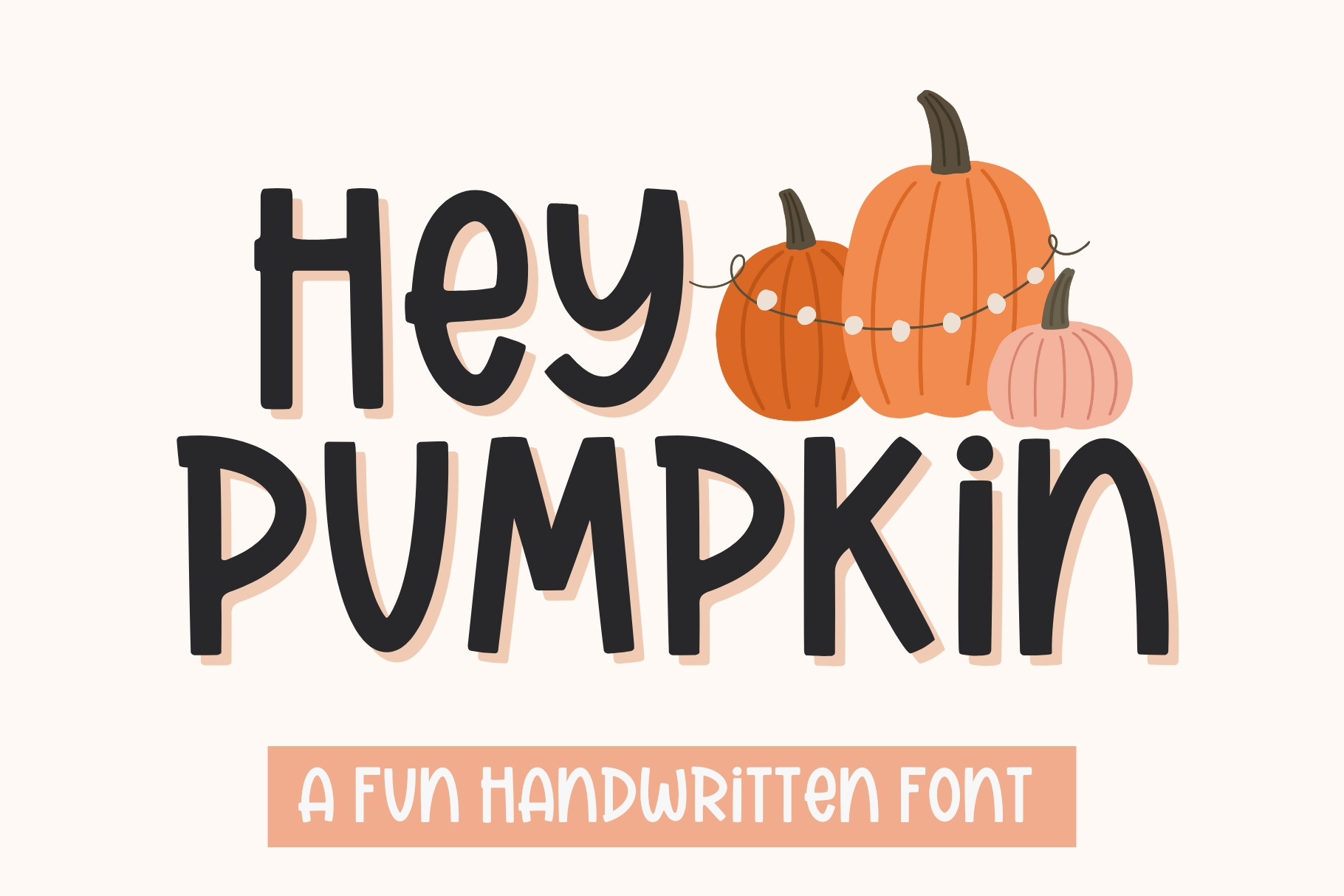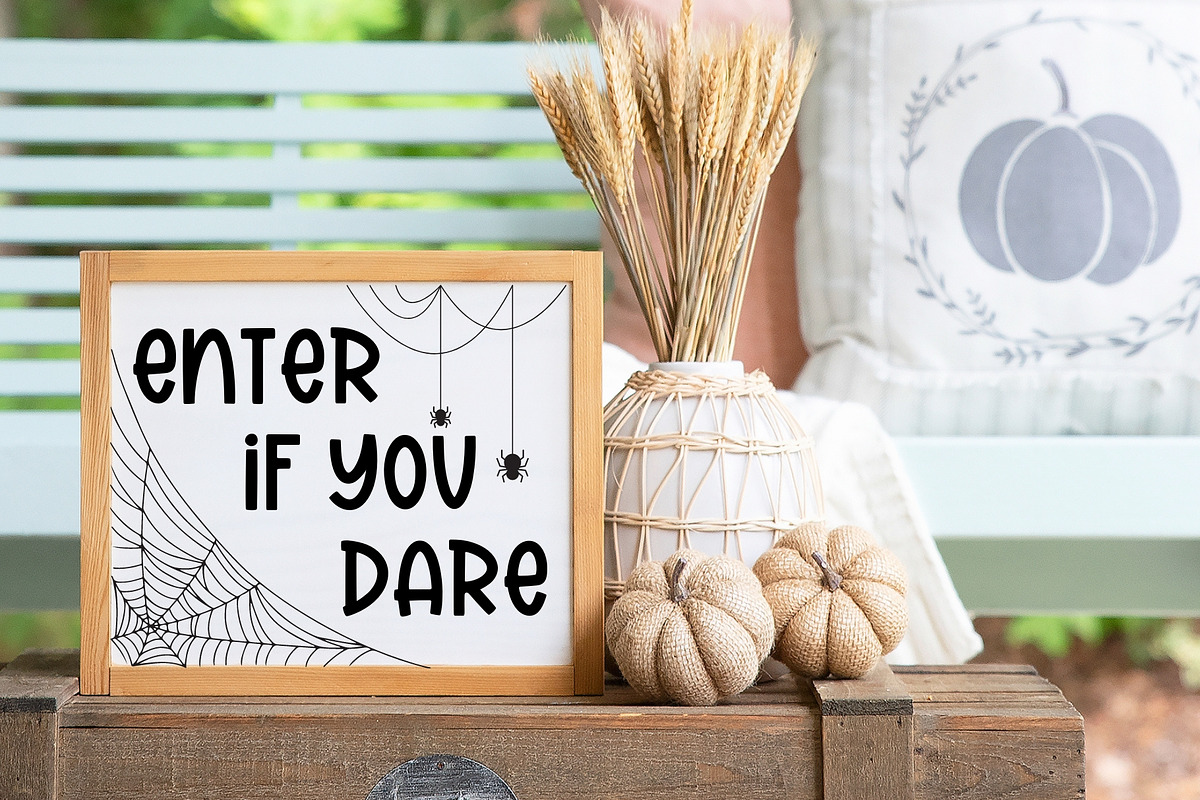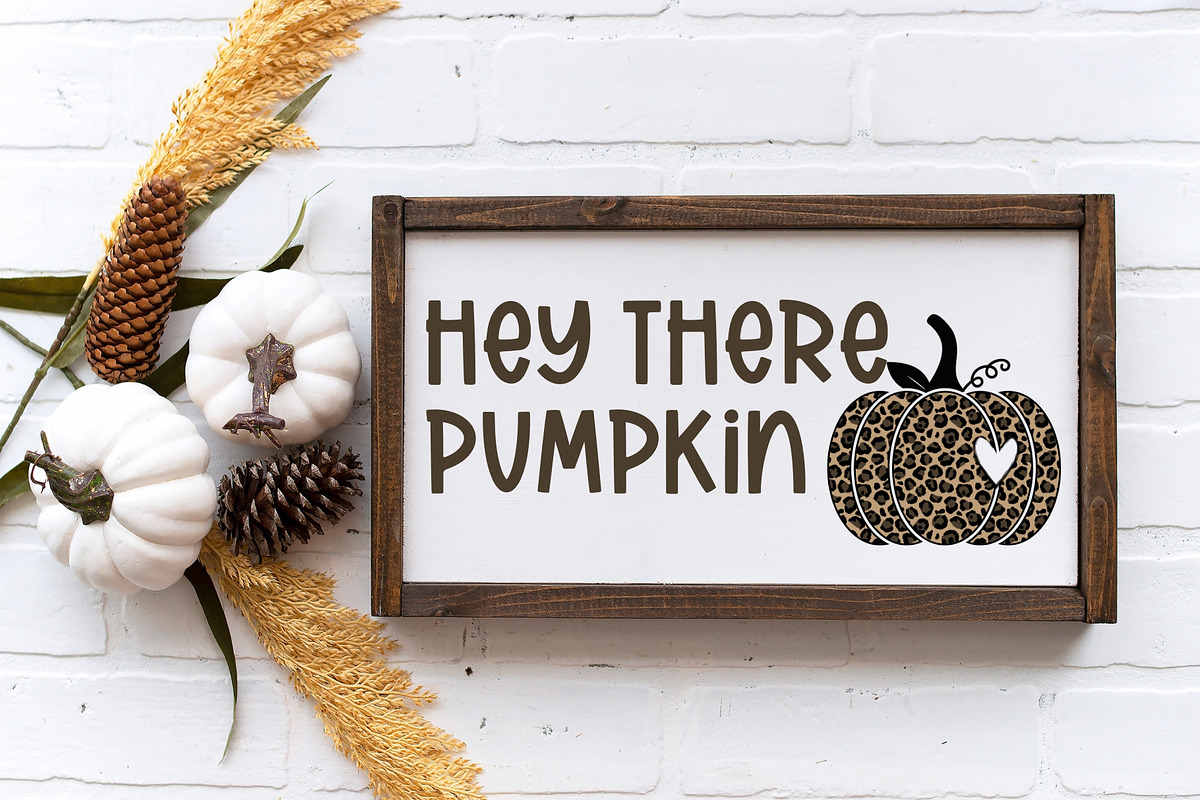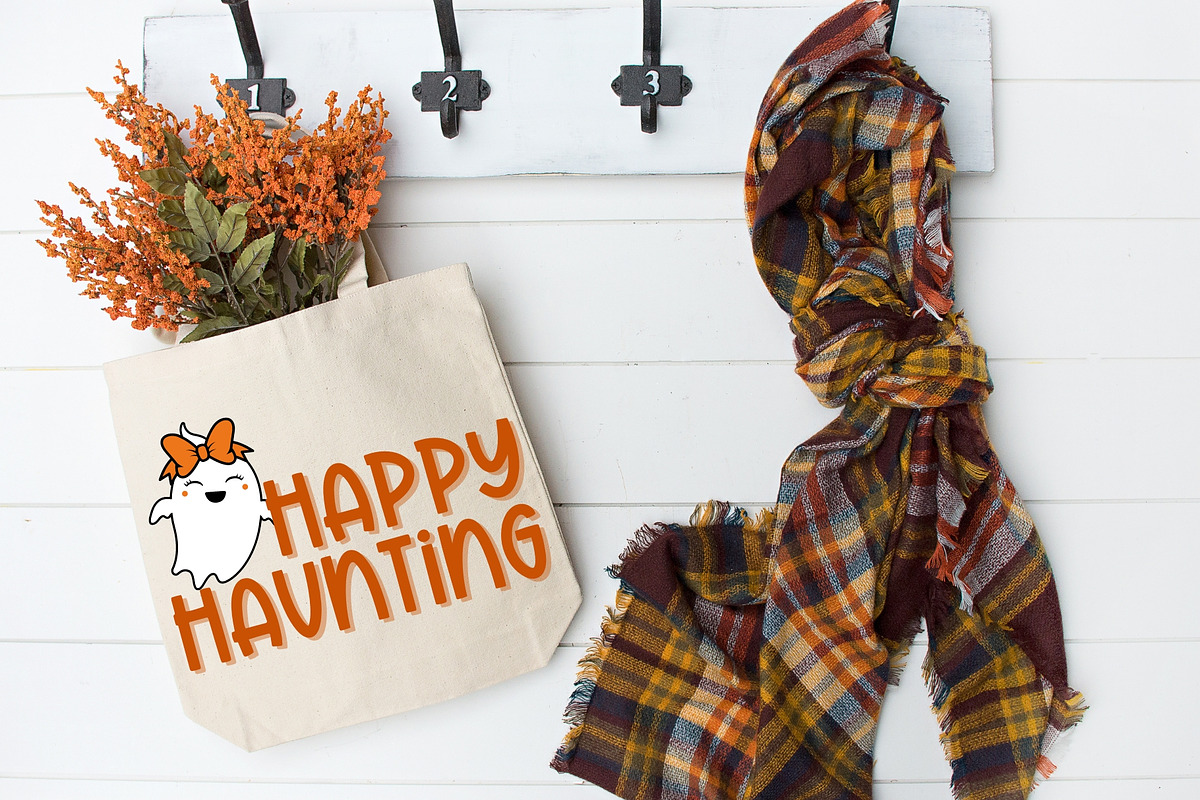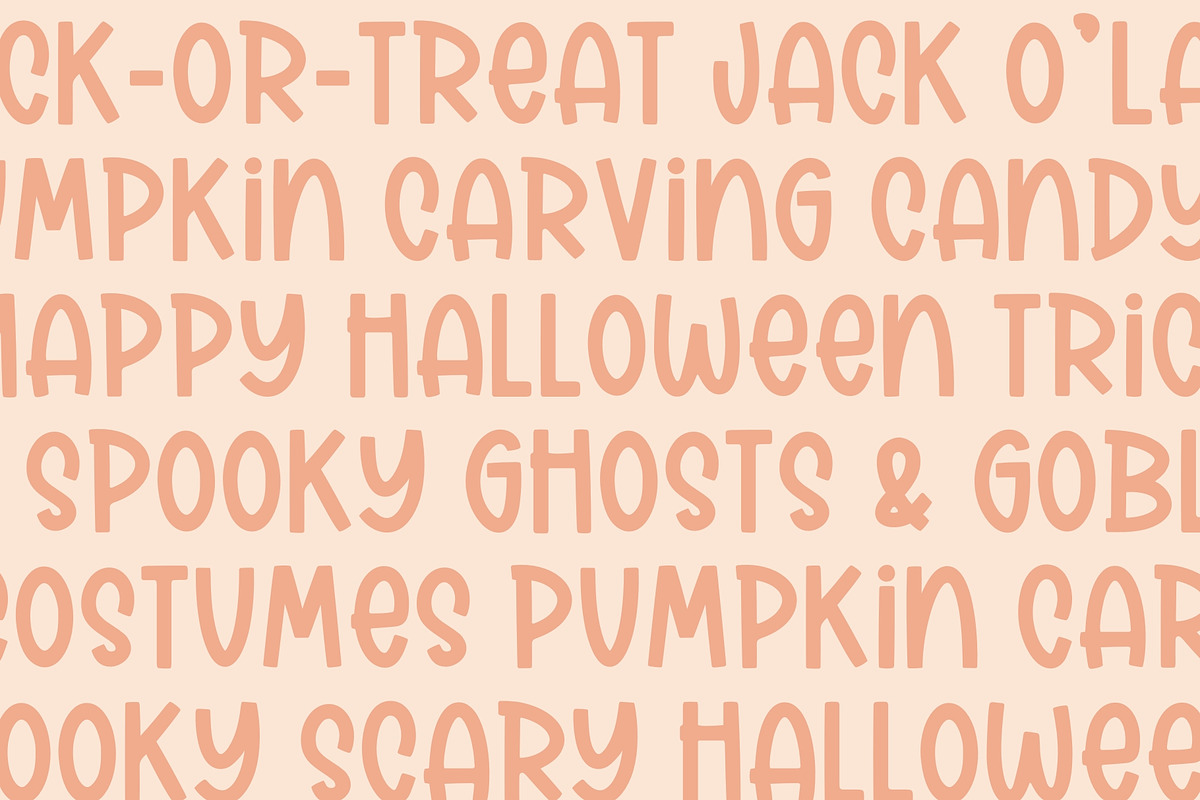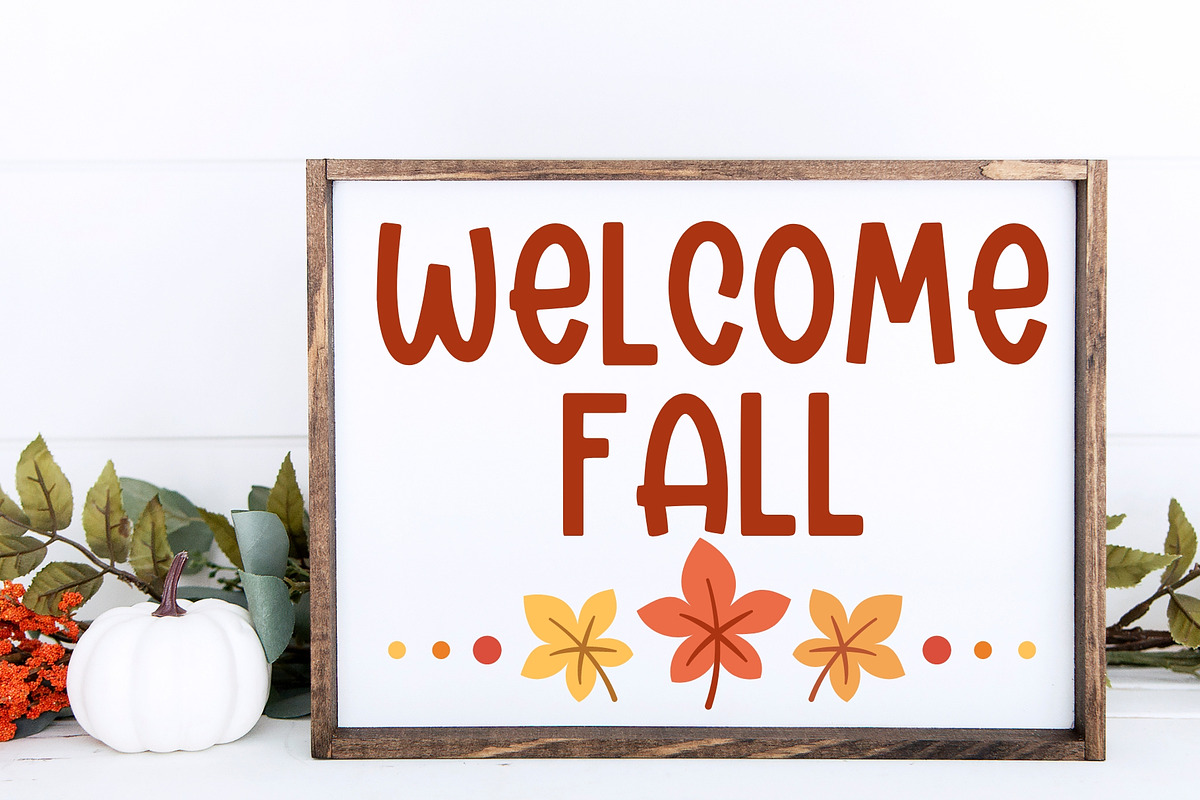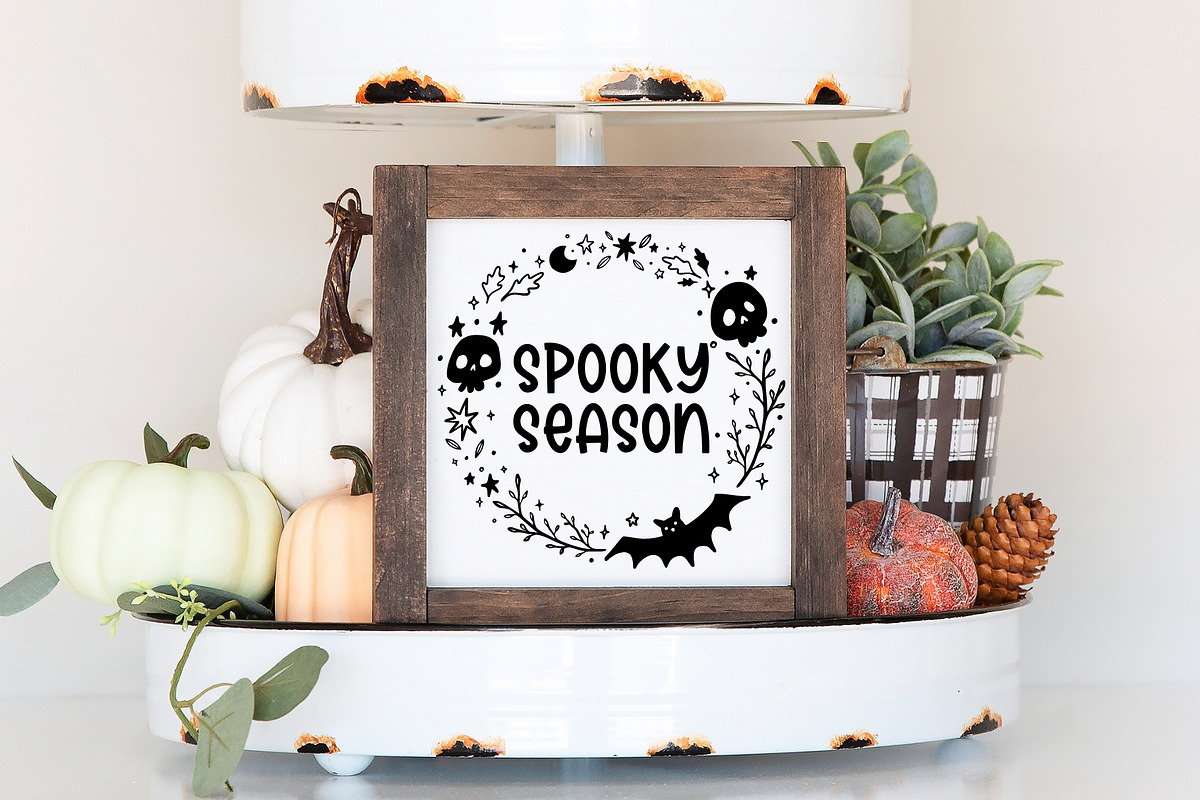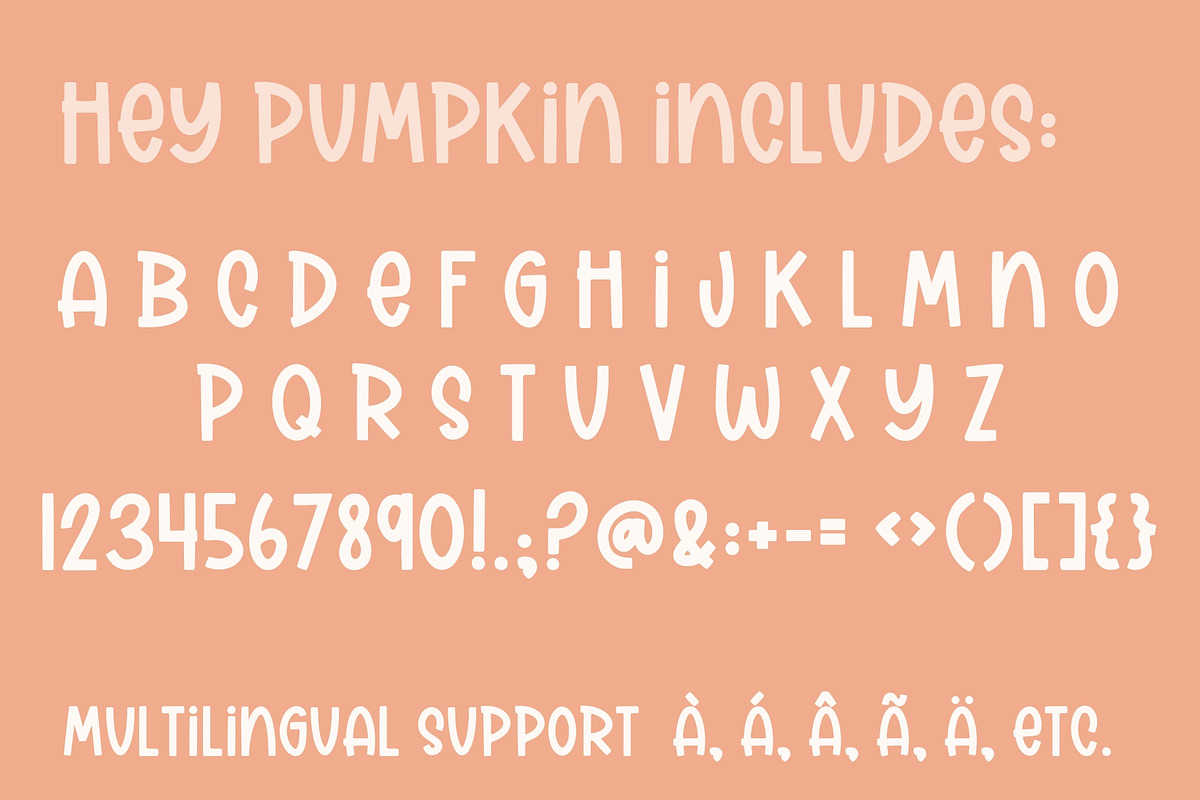
Hey Pumpkin, Cute Handwritten Font
Introducing Hey Pumpkin, our wicked cute Halloween Handwritten font, perfect for all your spooky projects! This meticulously crafted handwritten font captures the essence of Halloween with its playful yet eerie vibe. Whether you're creating invitations, banners, or decorations, our Handwritten Font will add a touch of magic to your designs. Our handwriting font is compatible with SVGs, Goodnotes, Procreate, and many other programs. Its fun handwriting style is sure to make your projects stand out. Get creative with our exclusive Cricut Fonts and let your imagination run wild this Halloween season.